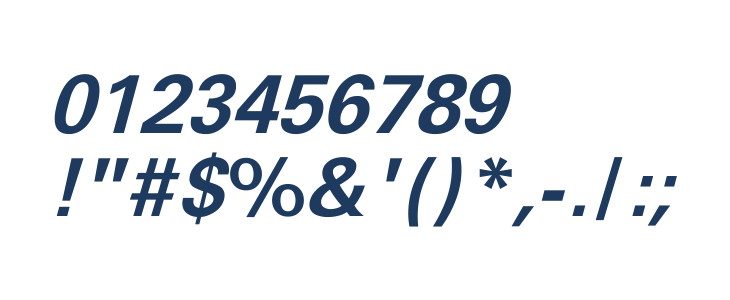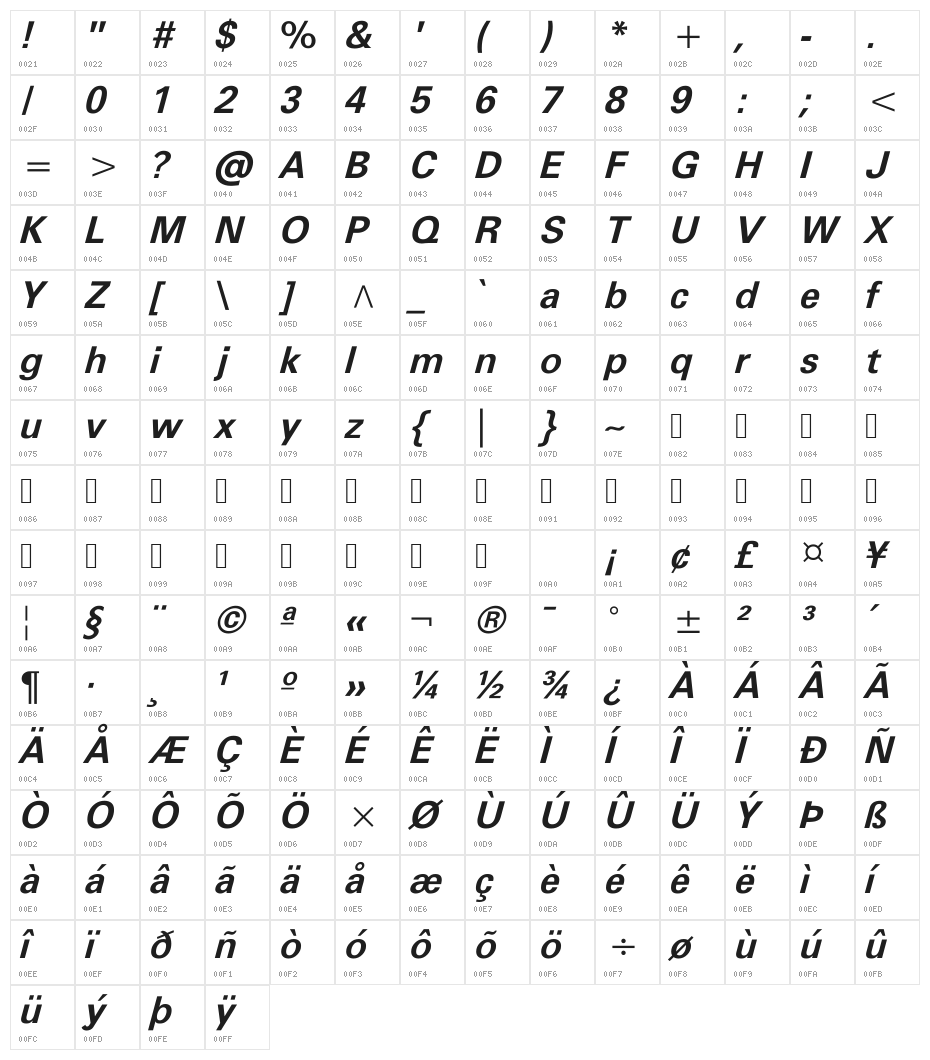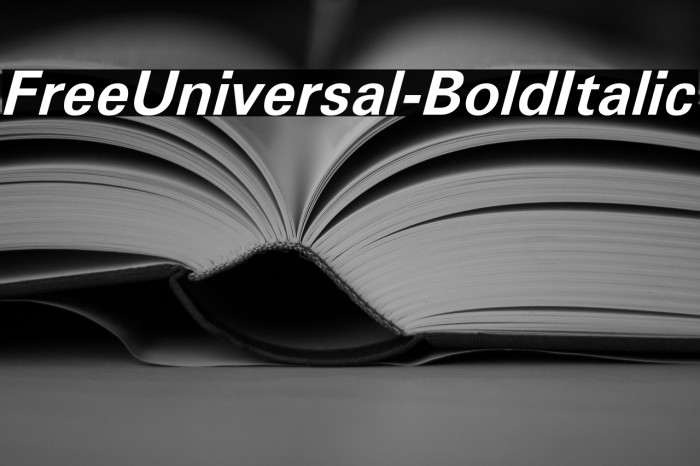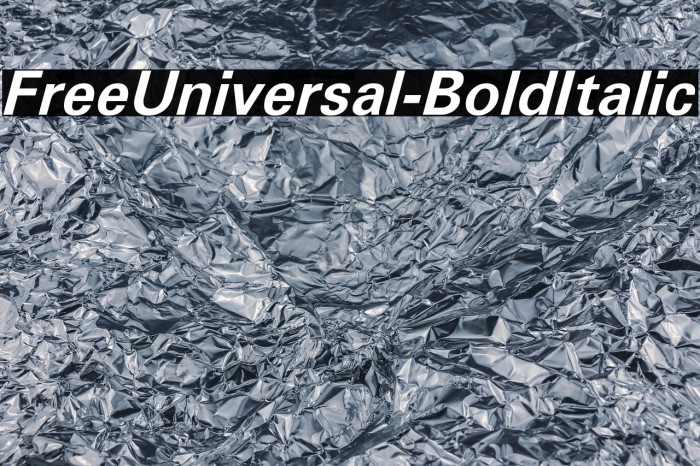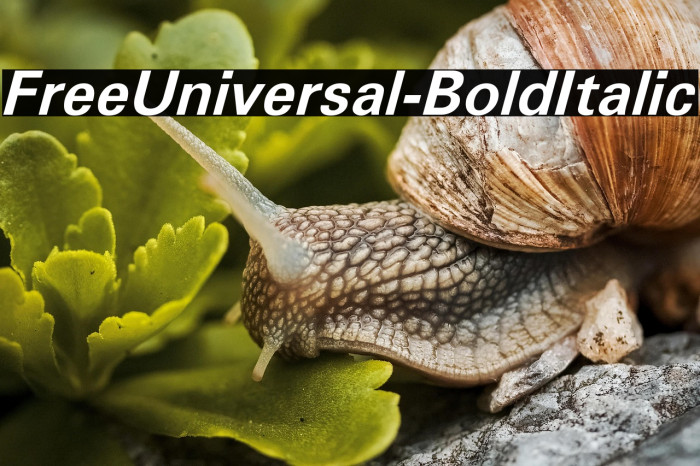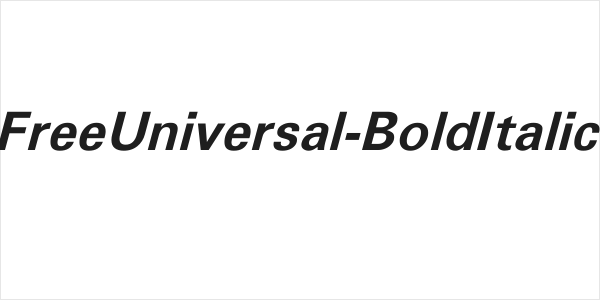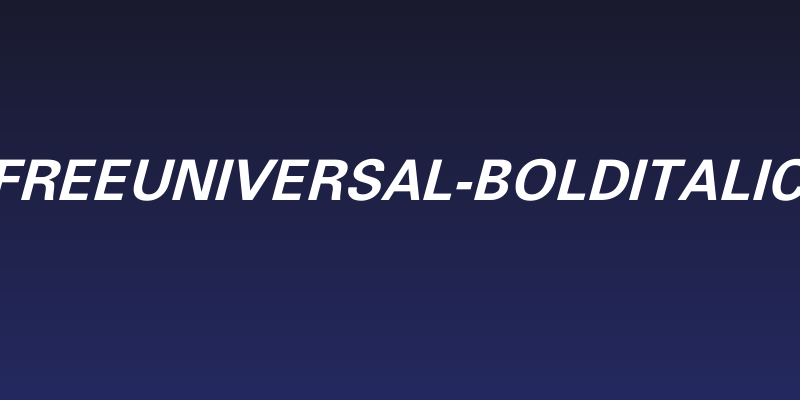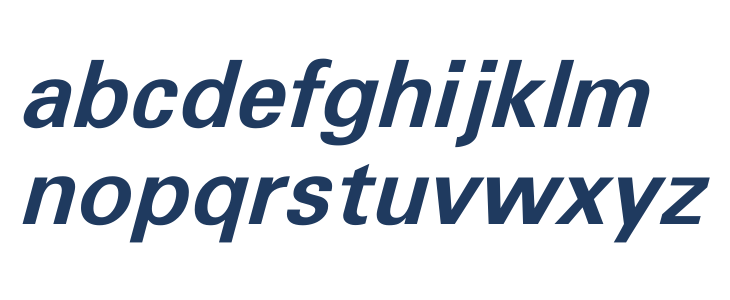
FreeUniversal-BoldItalic Font
FreeUniversal-BoldItalic Description
This font features a bold and italicized style, offering a dynamic and modern appearance. The characters are slightly slanted, enhancing the italic effect while maintaining a strong presence. The strokes are consistent and bold, providing excellent readability. The font includes a full set of uppercase and lowercase letters, numbers, and a variety of special characters. Its design is clean and versatile, making it suitable for various applications. The spacing between characters is normal, ensuring clarity and legibility across different sizes.
| Use Case | Headlines, Logos, Advertising |
| Proposed Projects | Ideal for headlines, branding, advertising, and any project requiring a strong, modern typeface. |